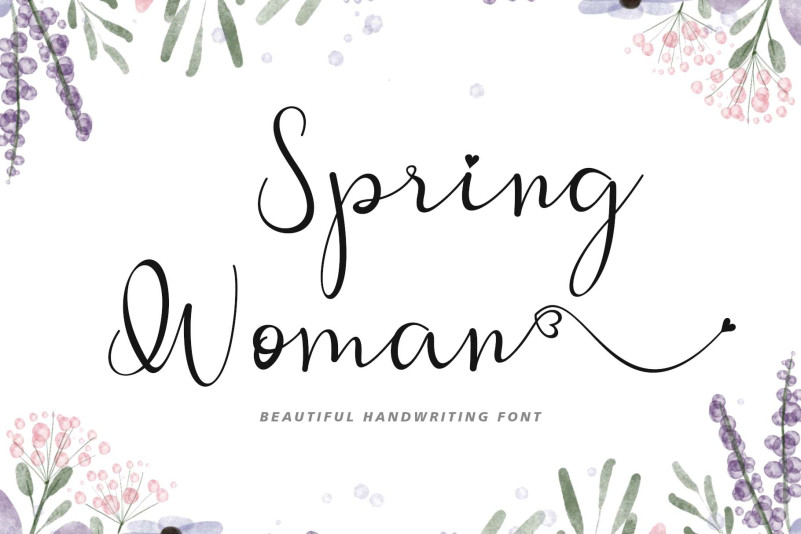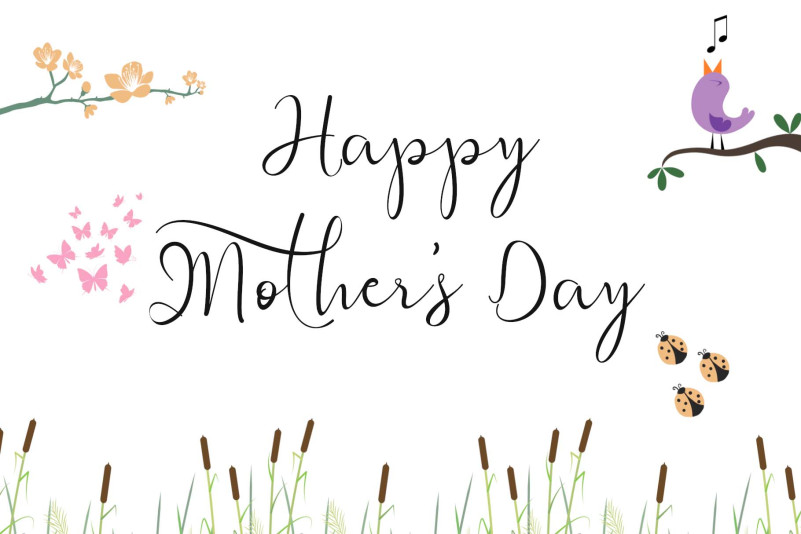
Spring Woman Font
Spring Woman Script Font is a very beautiful and unique handwritten font. This font is equipped with uppercase, lowercase, numerals, punctuations, swashes, titling, and multilingual support. It is suitable for weddings, spring, Easter, summer, holidays, and more.